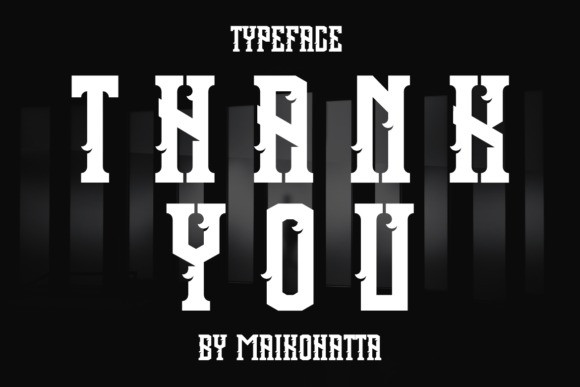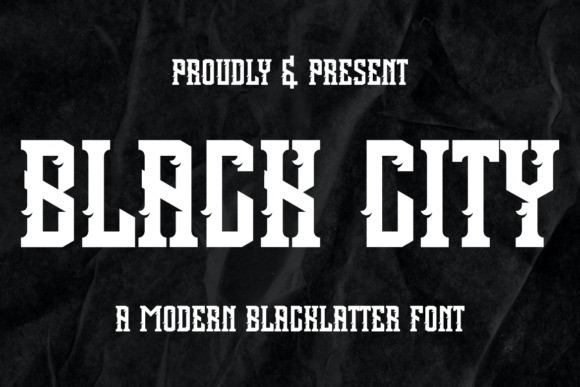
Black City Font
Black City Font a distinct, highly detailed, and Horror Metal font. It would make a great choice for exquisite retro-urban designs, tattoo business branding, logos, vintage designs, and more.